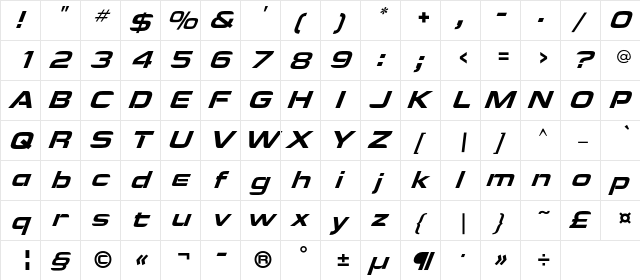
ManiaExtended-Oblique Regular
Design Context for ManiaExtended-Oblique Typeface
ManiaExtended-Oblique takes a measured approach to typography — its balanced proportions and neutral character make it a reliable workhorse for both digital and print work. The dynamic lean of this cut emphasises speed and emphasis in any layout.
Pro Tip: Use ManiaExtended-Oblique for emphasis, pull quotes, and subheadings where its slanted energy can add rhythm to the layout.